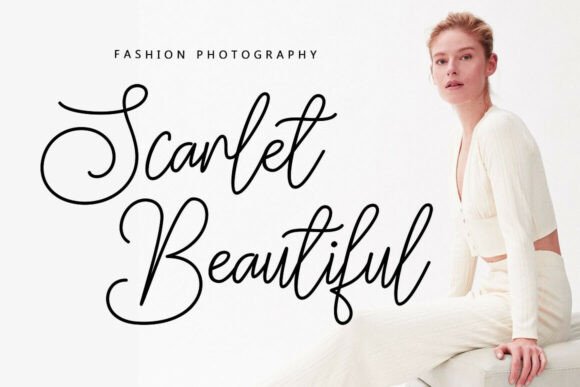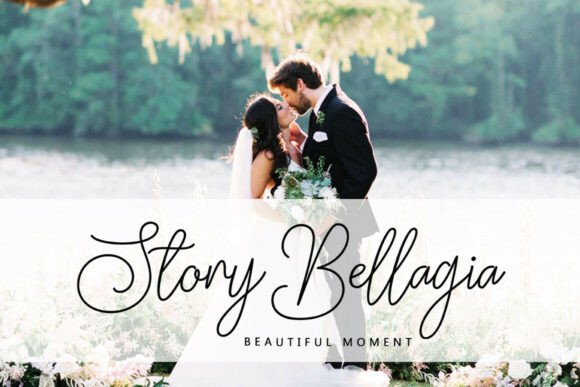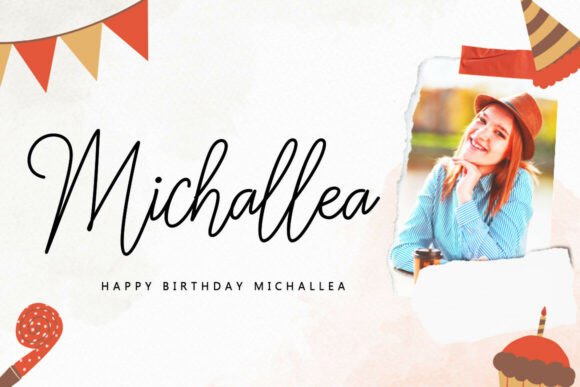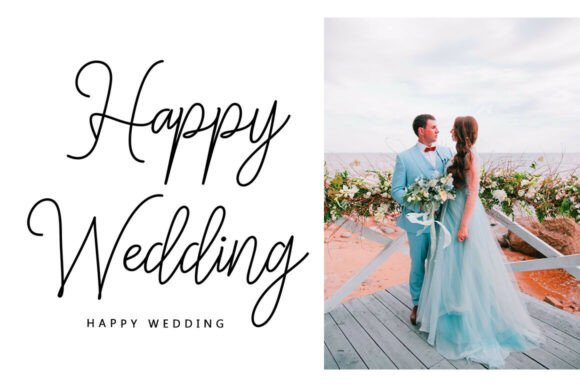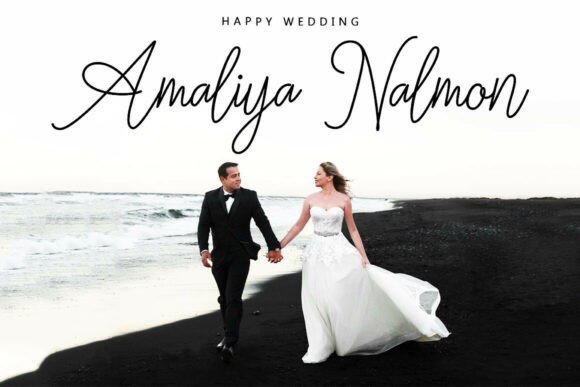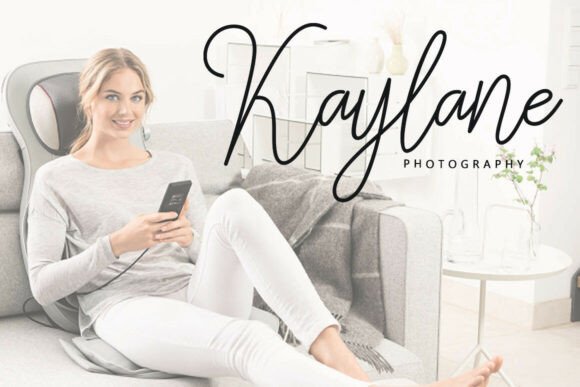
Introducing Glistening Font: Elevate Your Creative Projects with Elegance
Are you searching for a font that embodies elegance, sophistication, and luxury? Look no further than Glistening Font, a beautiful, high-quality script font designed to take your creative ideas to new heights. With its sleek, clean, and feminine appearance, Glistening Font is perfect for a wide range of applications, from formal invitations to fashion branding.
What Makes Glistening Font Stand Out?
Glistening Font is expertly crafted with attention to detail, boasting a range of features that set it apart from other fonts. Here are just a few reasons why Glistening Font is a must-have for designers and crafters:
- PUA-encoded: Glistening Font is PUA-encoded, making it easy to access all the glyphs and strokes. This means you can effortlessly create stunning text designs without the hassle of complicated font editing.
- Luxurious Letter Connections: The font features beautiful, flowing connections between letters, giving it a luxurious and sophisticated feel. This makes it perfect for projects where you want to convey elegance and refinement.
- Highly Readable: Despite its elegant appearance, Glistening Font is highly readable, even at smaller font sizes. This makes it suitable for a wide range of applications, from body text to headings.
- Feminine and Sensual: Glistening Font has a distinctly feminine and sensual feel, making it perfect for projects targeting a female audience or for creating elegant, sophisticated branding.
- Multilingual Support: Glistening Font includes multilingual support, allowing you to create text in a variety of languages.
The Complete Set: Everything You Need
Glistening Font comes with a comprehensive set of characters, including:
- Capital Letters: A set of beautifully designed capital letters, perfect for headings and titles.
- Lowercase Letters: A set of elegant lowercase letters, suitable for body text and other applications.
- Alternative Letters: A range of stylish alternative letters, allowing you to add variety and creativity to your text designs.
- Punctuation: A set of punctuation marks, including common symbols and glyphs.
- Numbers: A set of beautifully designed numbers, perfect for use in text and headings.
Glistening Font is versatile and can be used in a wide range of applications, including:
- Invitations: Create stunning formal invitations for weddings, parties, and other special events.
- Labels: Design elegant labels for products, packaging, and more.
- Restaurant Menus: Add a touch of sophistication to your restaurant menu with Glistening Font.
- Logos: Create a luxurious brand identity with Glistening Font.
- Fashion and Makeup: Perfect for fashion and makeup branding, packaging, and advertising.
- Stationery: Design beautiful stationery, including letterheads, notebooks, and more.
- Novels and Magazines: Use Glistening Font for book titles, headings, and other design elements.
- Greeting and Wedding Cards: Create stunning greeting and wedding cards with Glistening Font.
- Packaging and Advertising: Use Glistening Font for product packaging, advertising, and marketing materials.
In conclusion, Glistening Font is a high-quality script font that offers elegance, sophistication, and luxury. With its PUA-encoded design, luxurious letter connections, and highly readable appearance, it’s perfect for a wide range of applications. Whether you’re a designer, crafter, or DIY enthusiast, Glistening Font is a must-have for adding a touch of glamour to your creative projects.